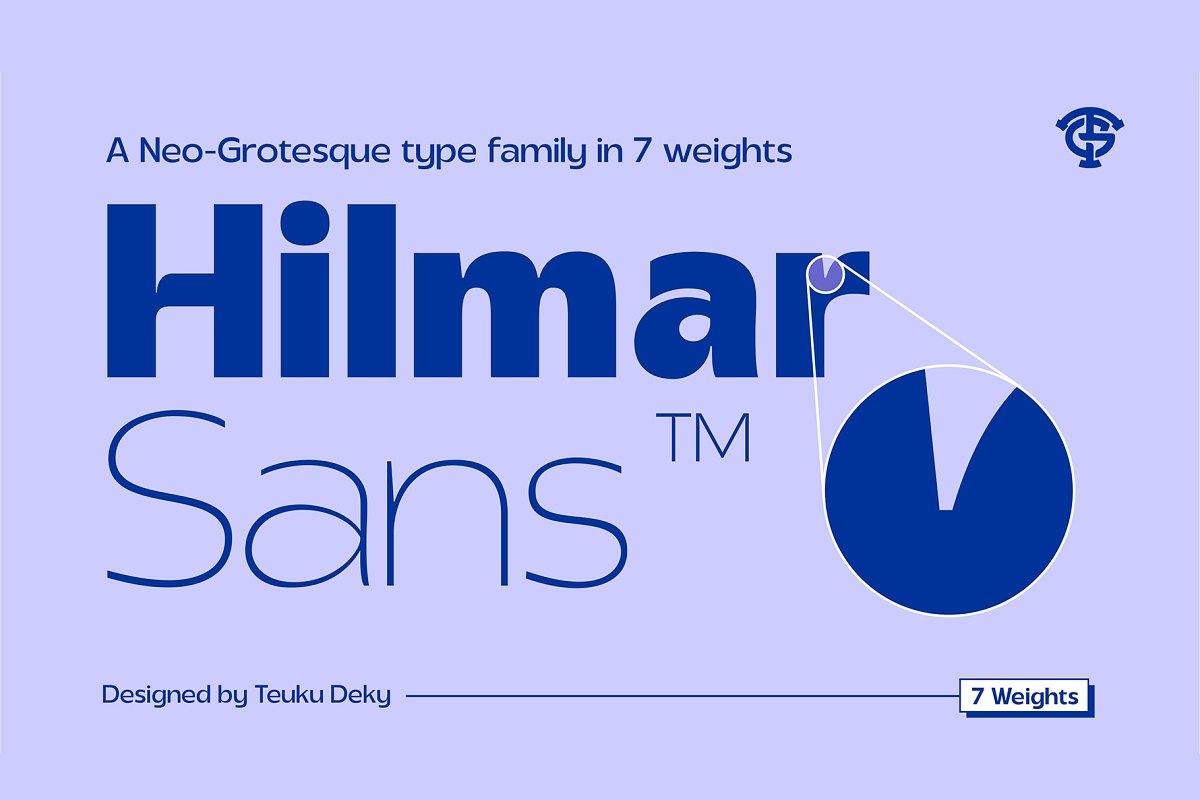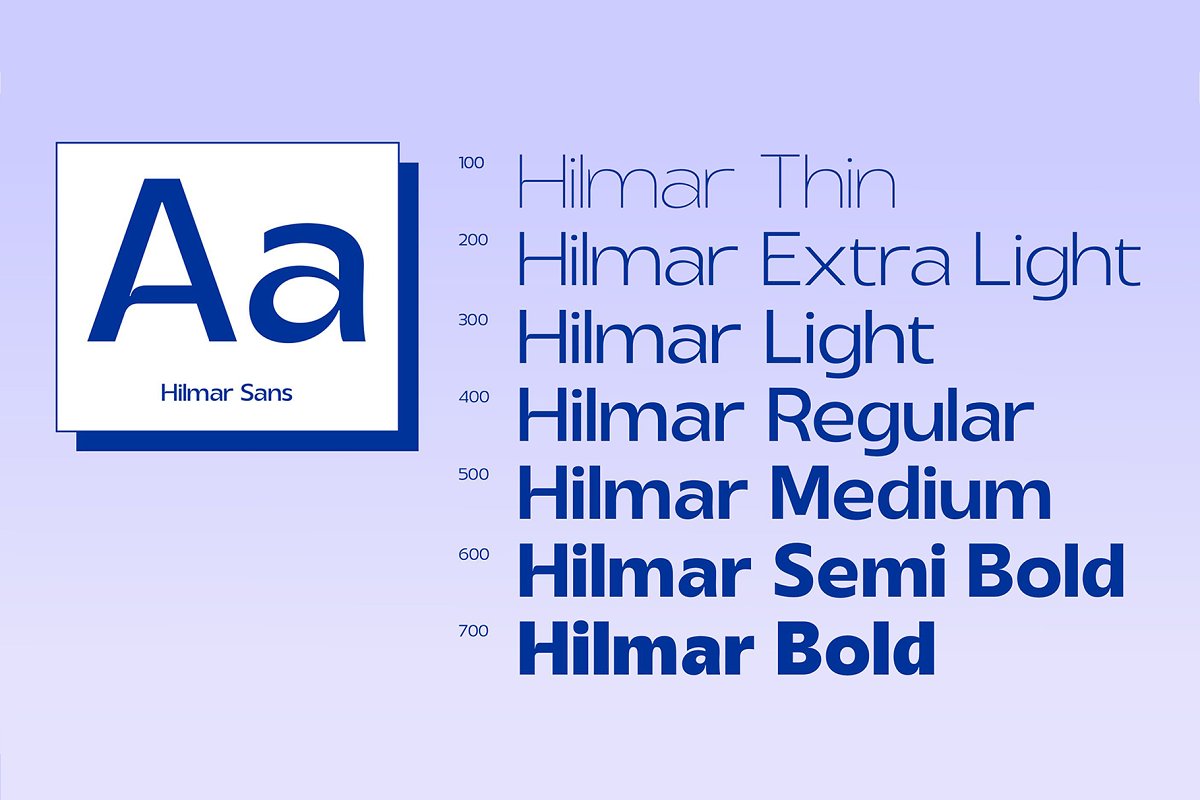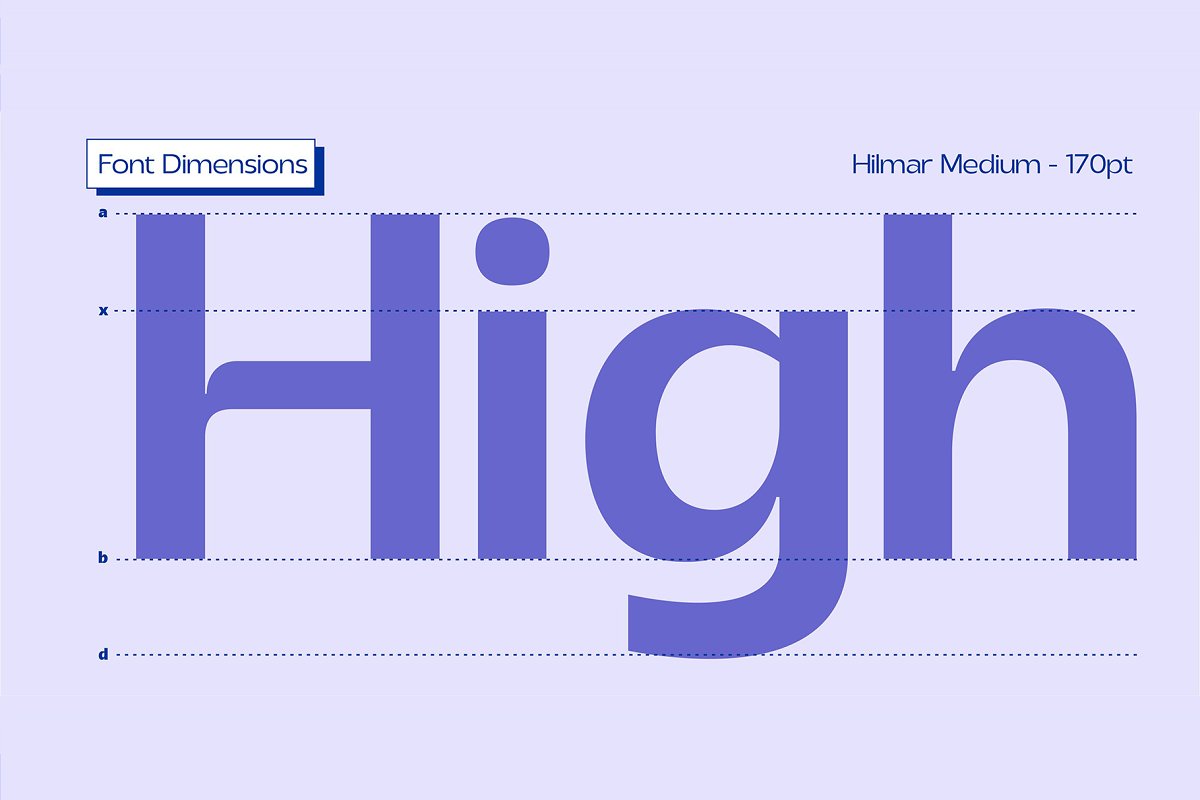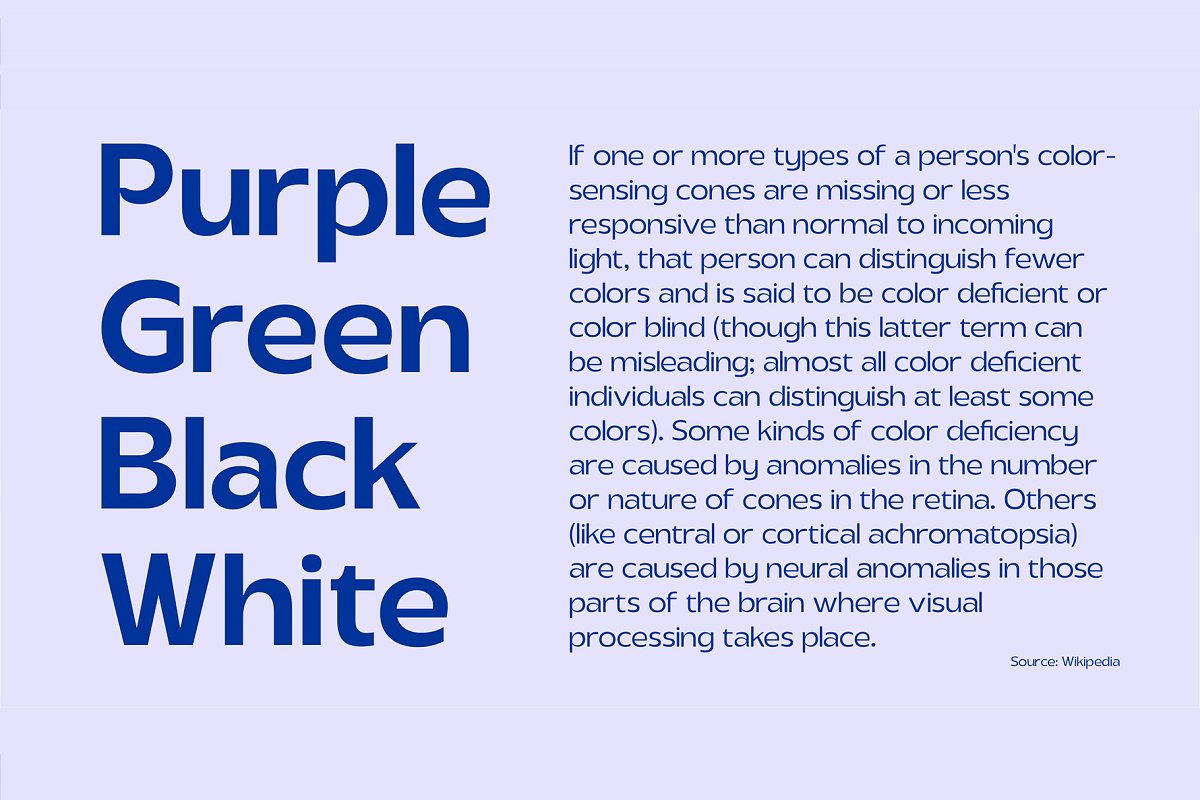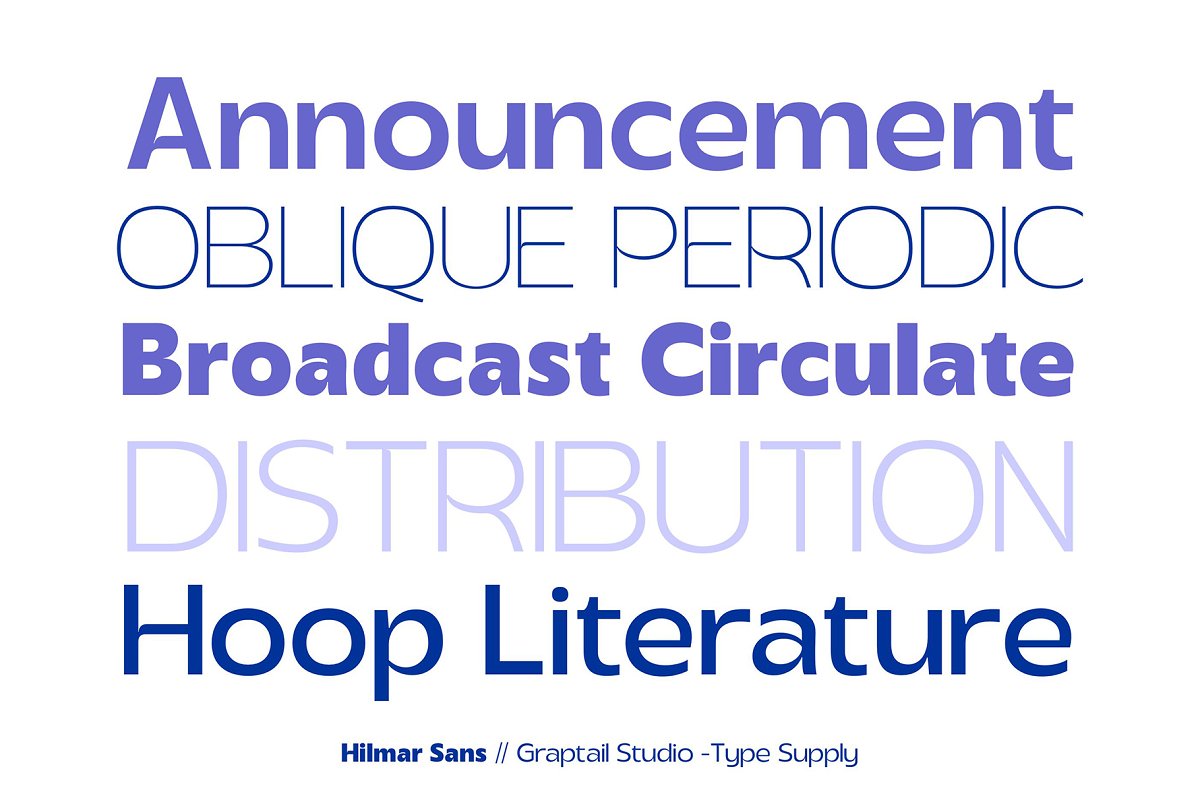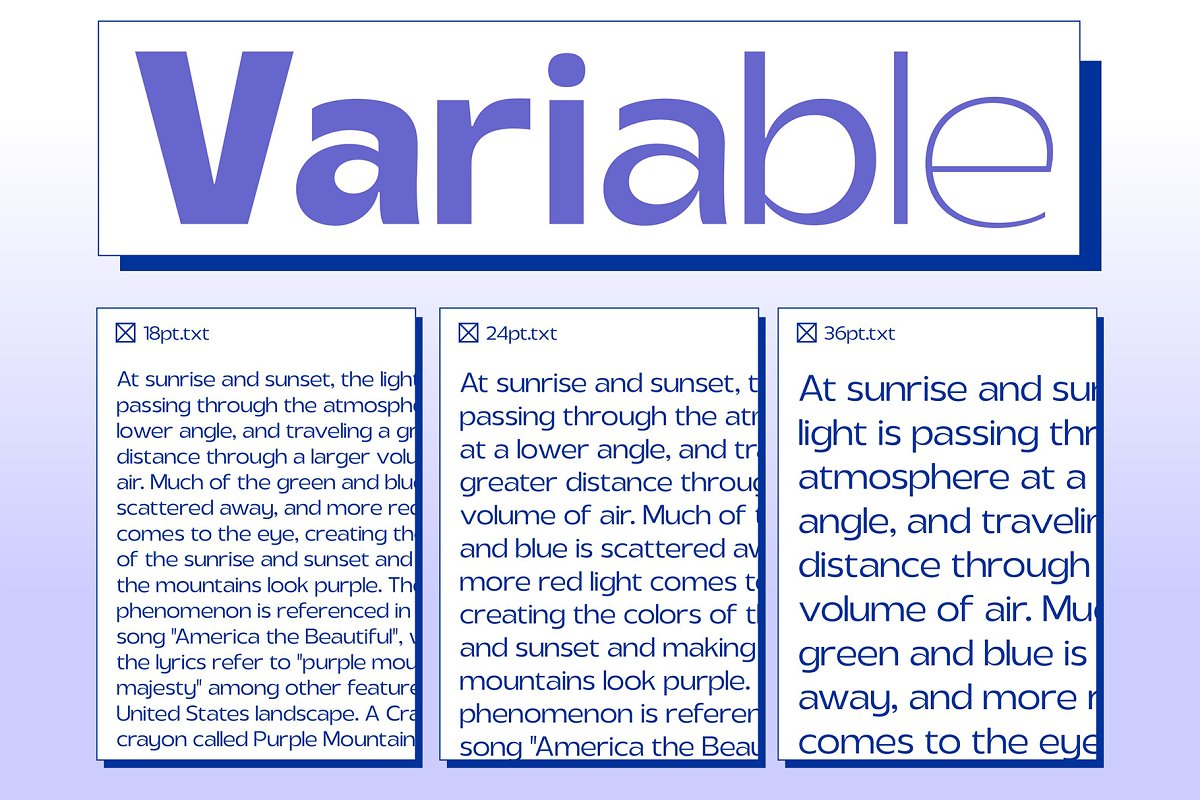
About the Hilmar Sans
Hilmar Sans is a neo-grotrsque typeface family in 7 weights, support most European Languages and features, The typeface is versatile to blend in your design- with 7 weight, ranging from thin, extra light, light, regular, medium, semi bold, bold variable type, Perfect anywhere you need a right finas touches for branding, publishing, titles, book, magazine , and use on UI/UX design
The typeface is versatile to blend in your design- with 7 weight, ranging from thin, extra light, light, regular, medium, semi bold, bold variable type, Perfect anywhere you need a right finas touches for branding, publishing, titles, book, magazine , and use on UI/UX design